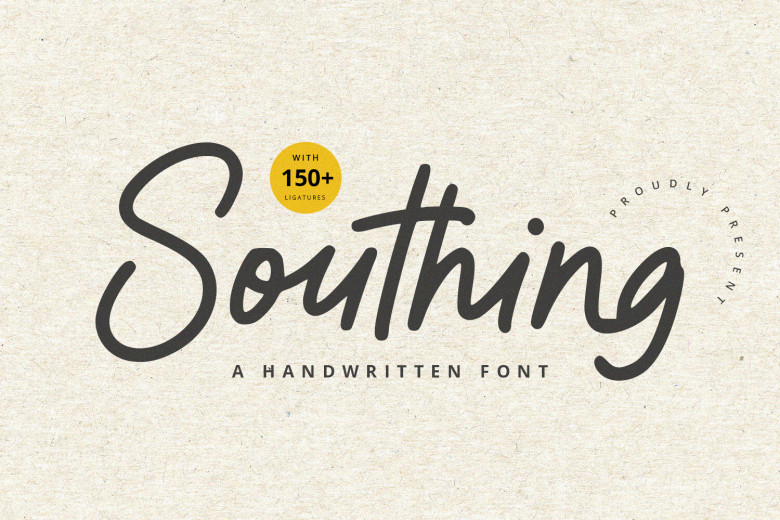
Southing Font
Southing is an informal handwritten font with natural and contemporary qualities that makes an impactful statement. Ideal for branding, logo Design, Lettering, Clothing Logotype, Logotype Poster, magazines, Packaging, shopping bags, posters, T-Shirts, photography, book covers, special events design, projects as well as photography
Southing Handwritten Font